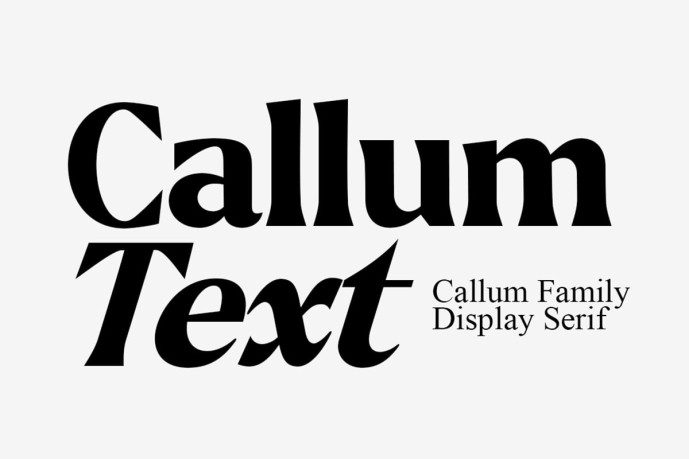
Callum Text: A Serif Typeface for a Modern Aesthetic
Experience timeless elegance with Callum Text, a carefully crafted serif typeface that blends classic charm with contemporary style. Its high-contrast strokes and graceful curves create a visual symphony that captivates the eye and enhances any design. Whether you’re creating a sophisticated editorial layout, a striking brand identity, or an engaging website, Callum Text’s flexibility and refined beauty will make your work stand out. Immerse yourself in the world of Callum Text, where each character is meticulously designed to exude strength and refinement. From its carefully sculpted serifs to its perfectly balanced proportions, this typeface is a testament to the timeless power of classic typography. Its true italics, with their unique personality, add a touch of dynamic movement and visual interest, allowing you to create designs that are both captivating and easy to read.
Callum Text allows for fluid design in nine styles, supporting all major Latin languages. The true italics enhance the aesthetic, bringing energy, and making it suitable for modern applications.
The natural curves, ridges and slanted stems become more pronounced as the font thickness increases. While regular thickness has lower contrast and optical correction to create a warm, soft look.